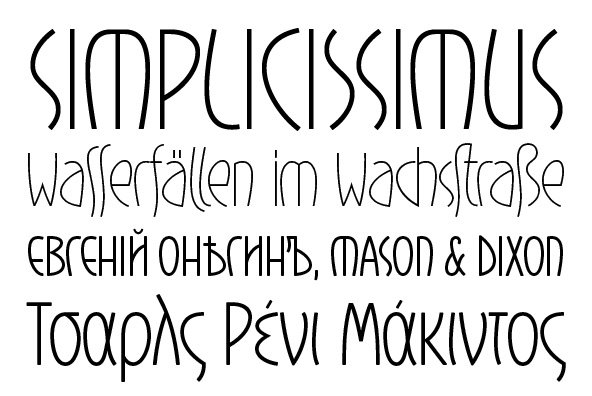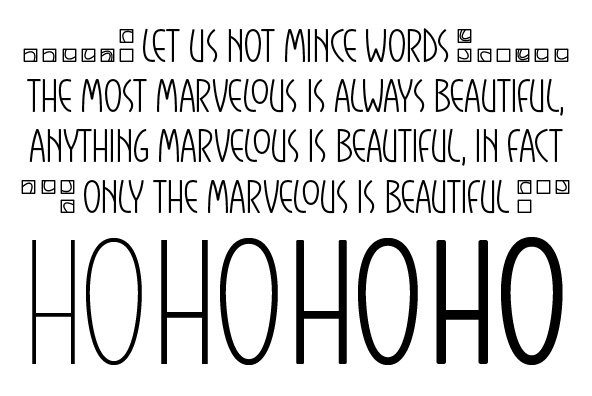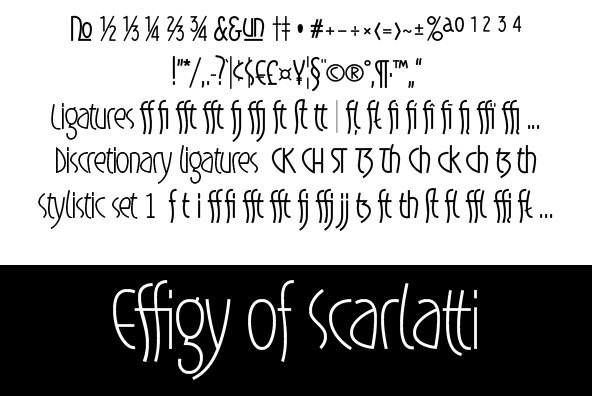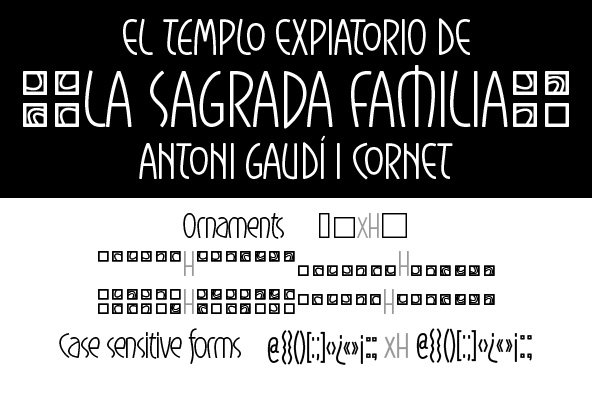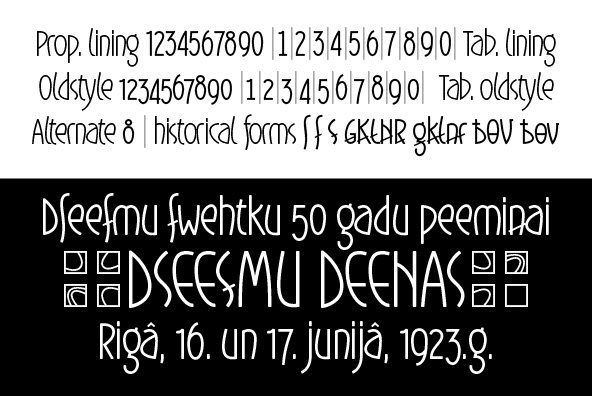
Art Nouveau typeface "Gaisma" ("Light" in Latvian) draws inspiration from Vienna Secession movement and Nordic National Romanticism. The work on the design started as drawings of several characters for the graphic standard for the Jugendstil museum in Riga. It contains characters for all the European languages Cyrillic and modern Greek included as well as a huge set of contextual and stylistic alternates and historical characters to replicate texts of the era.